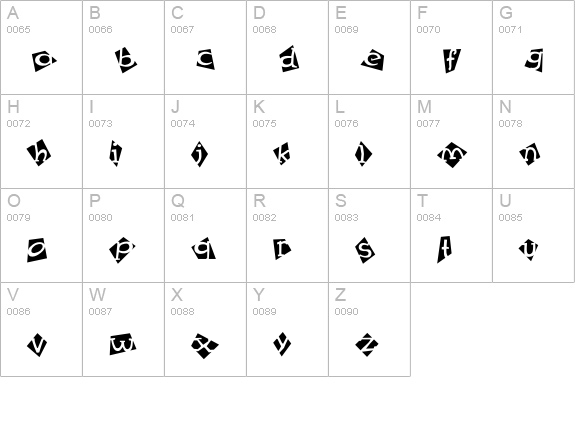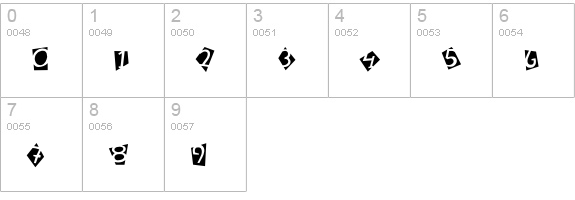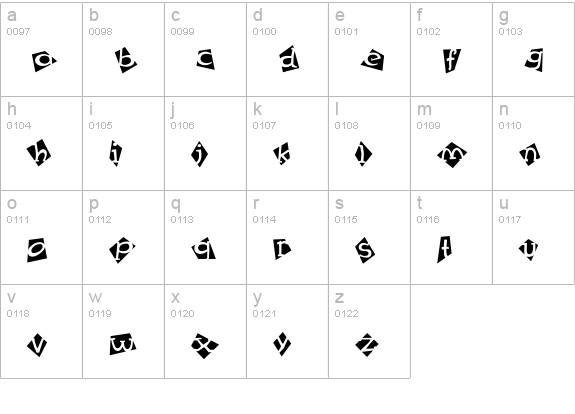
Mex Special-Two Font Details
Mex Special-Two font is a unique and stylish typeface that combines modern design with a touch of elegance. Its sleek lines and bold strokes make it perfect for a variety of design projects, from branding to packaging to advertising. This font exudes a sense of sophistication and creativity, making it a standout choice for anyone looking to make a statement with their typography. What sets Mex Special-Two font apart is not only its striking design, but also the fact that it is completely free to download. Yes, you read that right - this high-quality font is freely available at FontsMarket.com, making it accessible to designers and creatives of all levels. So go ahead, give your projects a touch of class with Mex Special-Two font - the perfect blend of style and affordability.